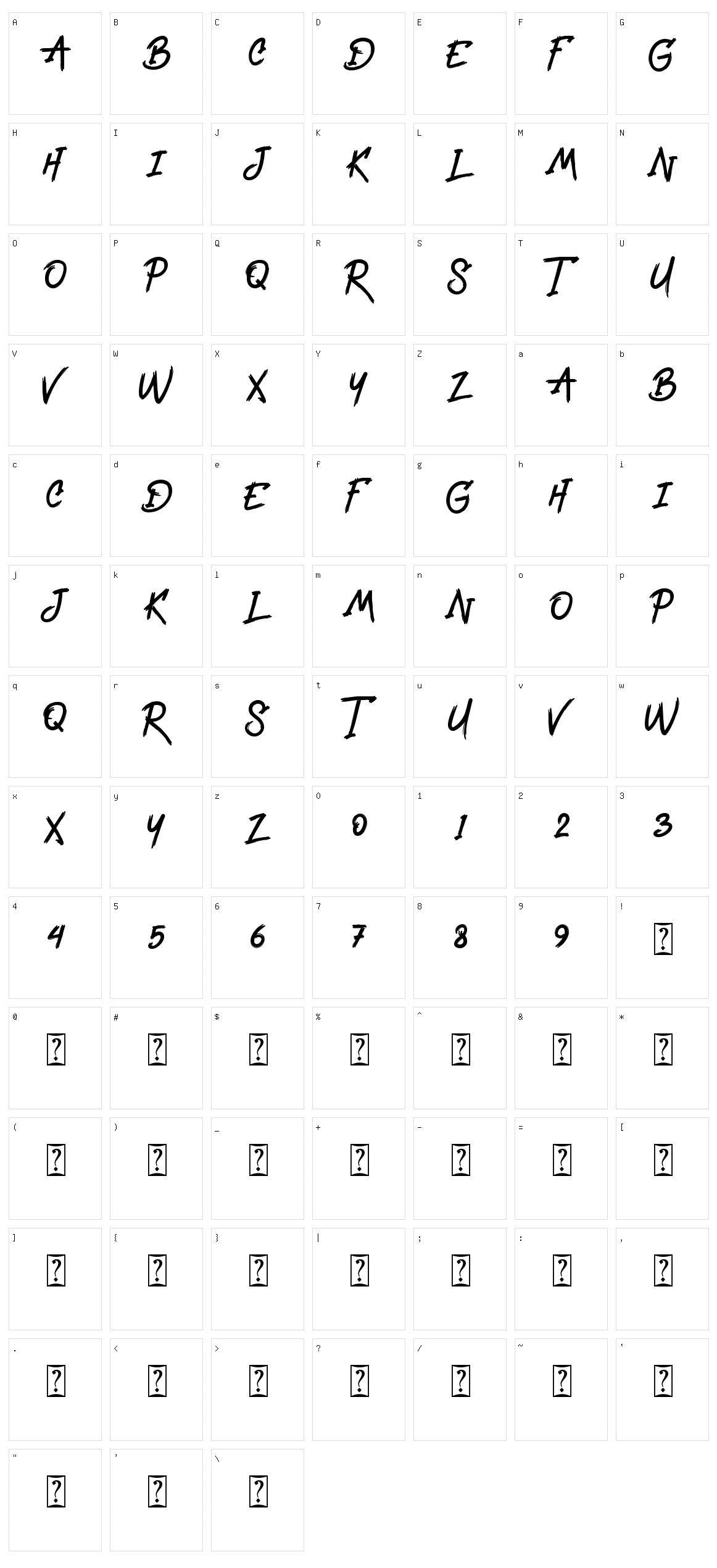
The free font Black Manta Brush is carefully designed by Creaditive Design, showcasing a thoughtful balance of creativity and usability and falls under the Script font style. When you download the ZIP file, it contains only 100.83 KB of font files, making it lightweight and quick to download. Please review the license details below to understand permitted usage and distribution rights. If license information is not available, we recommend using this font for personal projects only or contacting the author directly for commercial usage permissions.